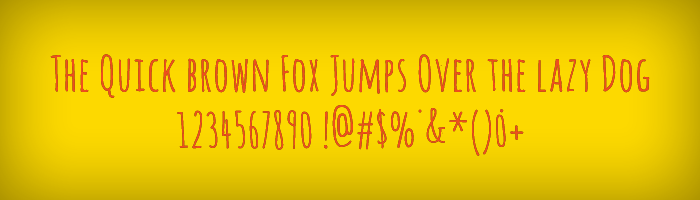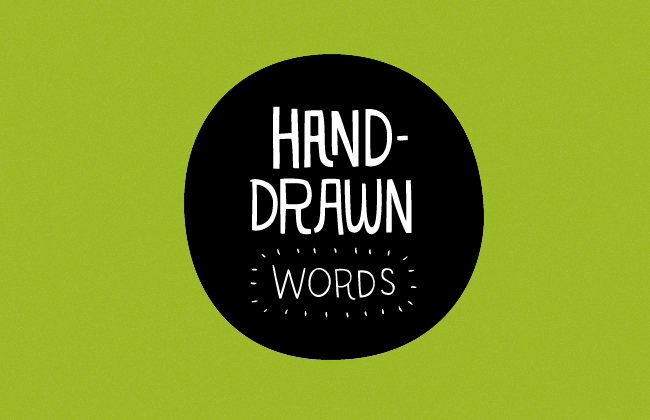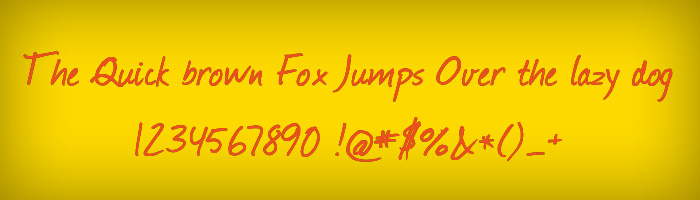
Beautiful Hand Drawn Fonts with FontFace Kit
Free hand drawn fonts
Font plays a very important role in many visual designs and interfaces. So it become very important to use a proper font in your design. Though these fonts looks less serious, you can use them in your next web design project and achieve a really nice hand crafted and sketchy effect.
Amatic
Blokletters
Desyrel
Elliotsix
HarabaraHand
Idolwild
Jenna Sue
Jinky
Journal
Kristi